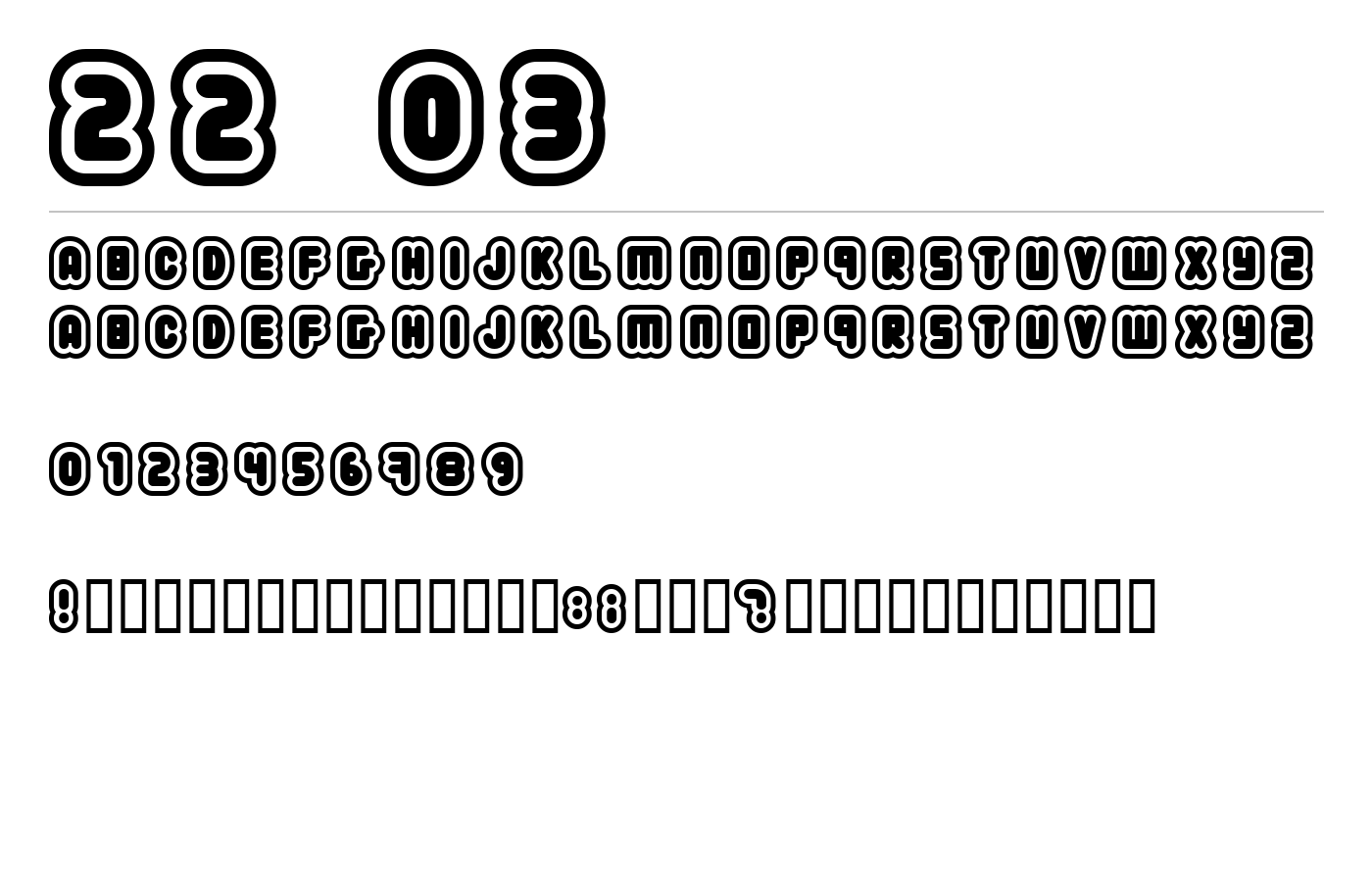
22 03 Font is a bold, rounded sans serif with a layered, outlined style that creates a playful and modern look. Its thick strokes and bubble-like letterforms give it a friendly, energetic personality, making it ideal for youth-focused branding, posters, and eye-catching headlines. This font stands out with its unique outline layering, perfect for designs needing a fun and engaging vibe.
22 03 Font
About 22 03 Font